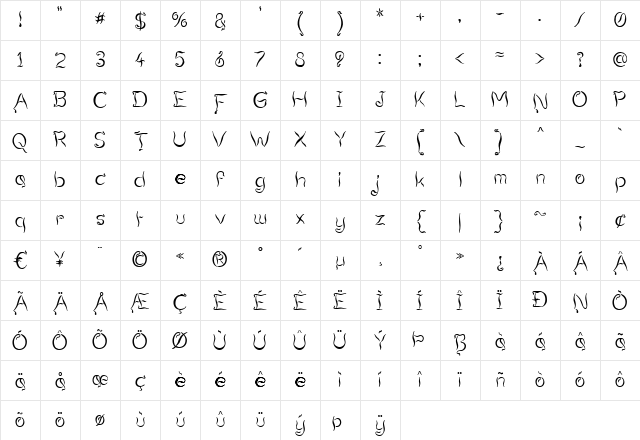
Smoking Tequila Regular
Smoking Tequila Family
Smoking Tequila Regular
Design Context for Smoking Tequila
Smoking Tequila is a composed and adaptable typeface that performs quietly and consistently across a wide range of design contexts.